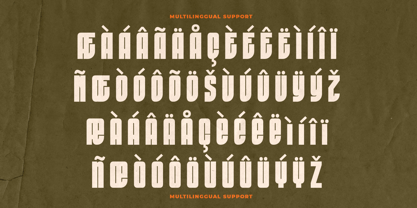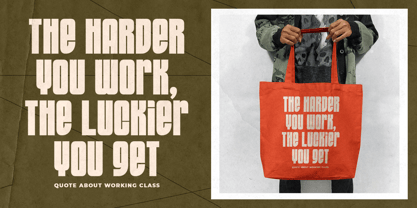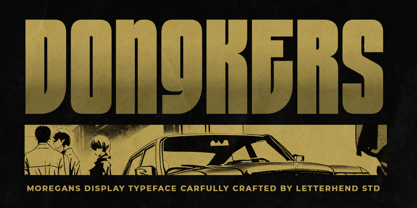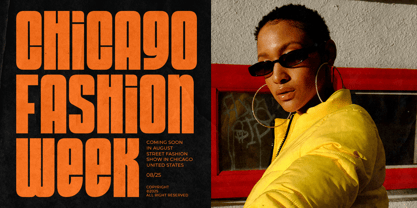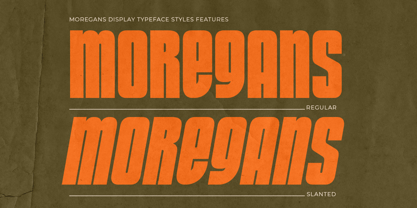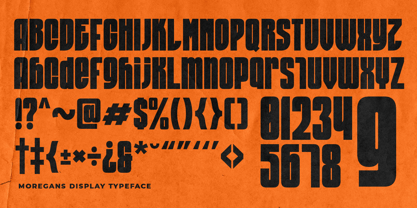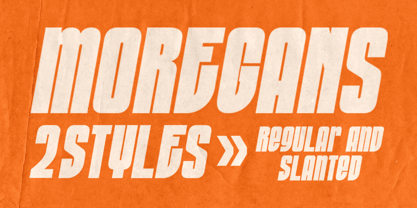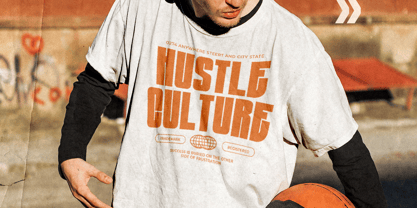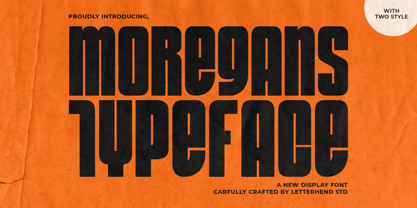
Moregans
von Letterhend
Die Schriftfamilie Moregans wurde von Hendry Juanda entworfen und von Letterhend veröffentlicht. Moregans enthält 2 Stile und Familienpaketoptionen. Mehr über diese Familie
Moregans is a bold and powerful display typeface featuring two distinctive styles. Carefully crafted for maximum visual impact, this font boasts a tall, compressed structure with strong geometric shapes and vintage undertones. Its commanding presence makes it perfect for posters, branding, editorial titles, and retro-inspired designs, bringing a confident and edgy vibe to any project.
Features :
• Uppercase & lowercase
• Numbers and punctuation
• Alternates Character
• Multilingual support
Designer: Hendry Juanda